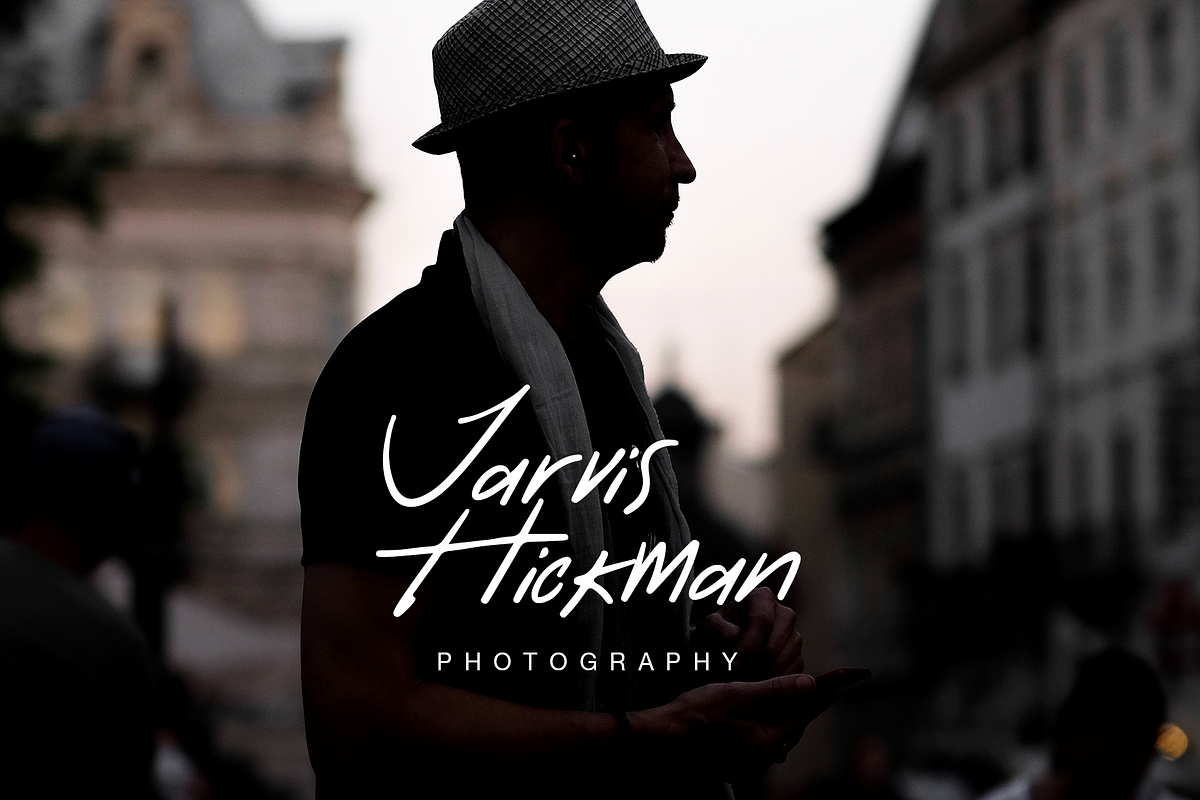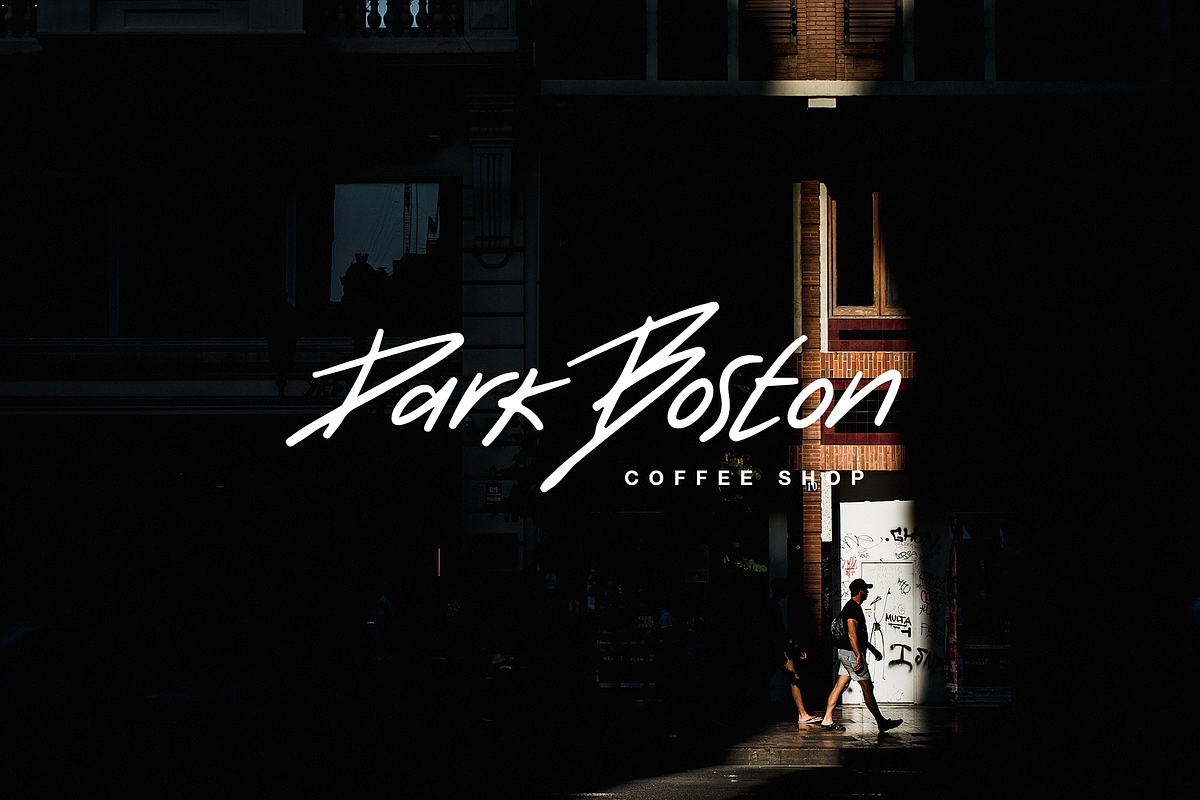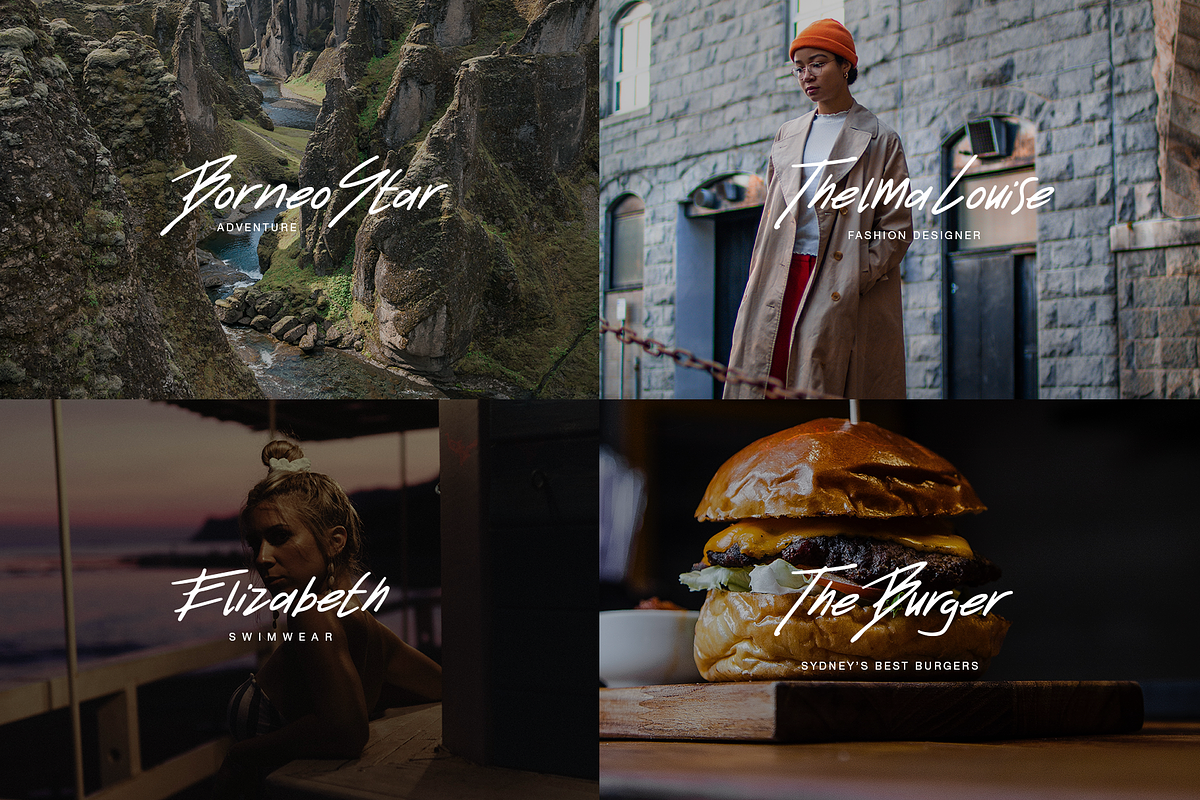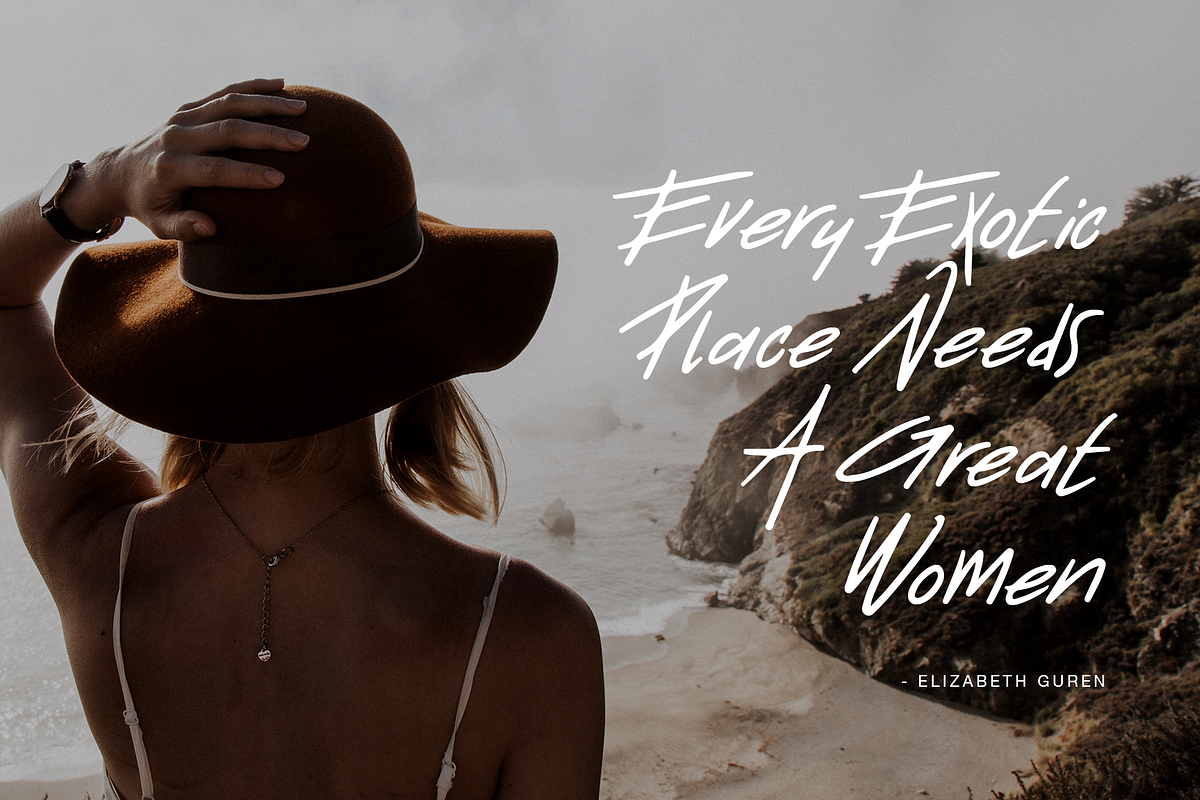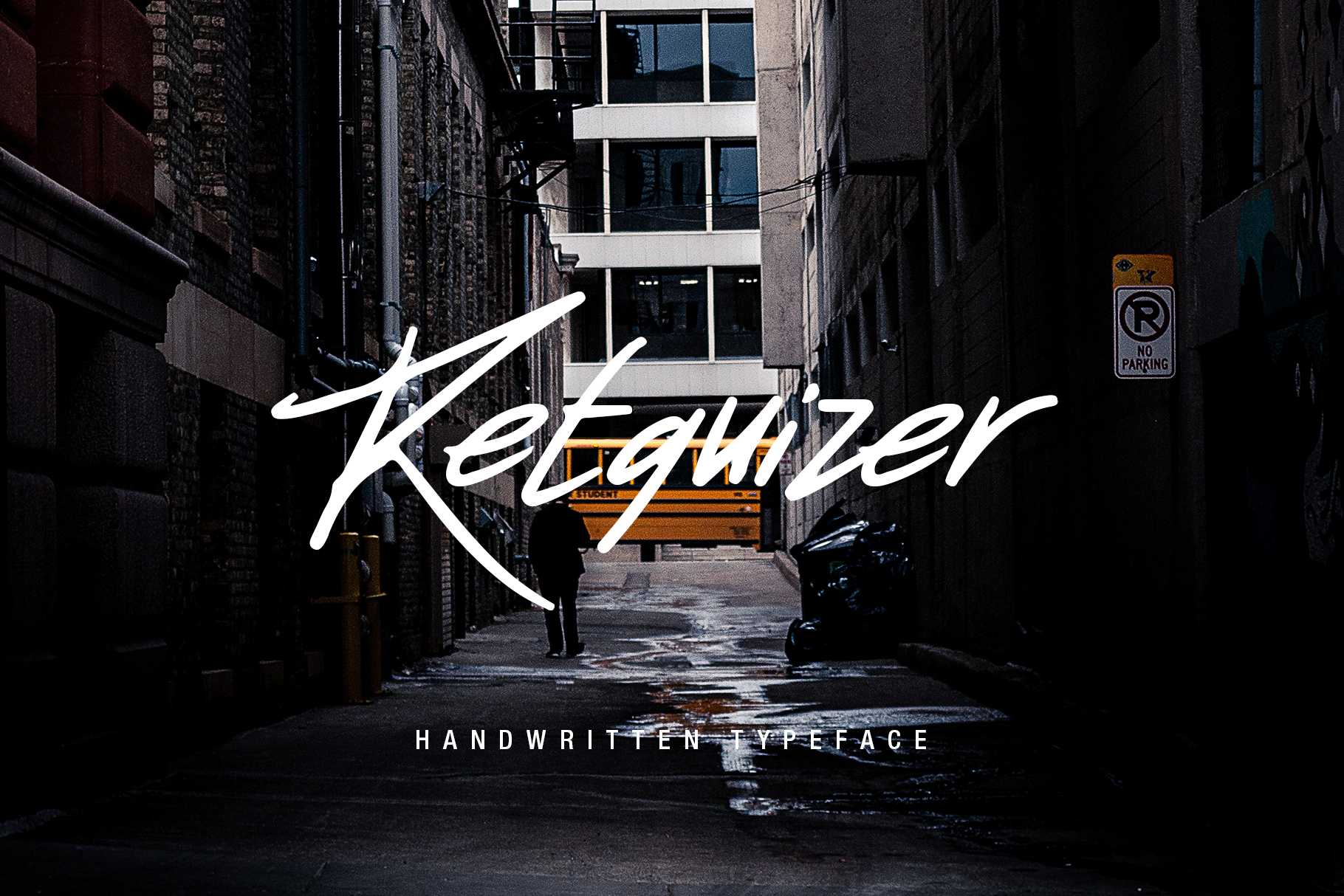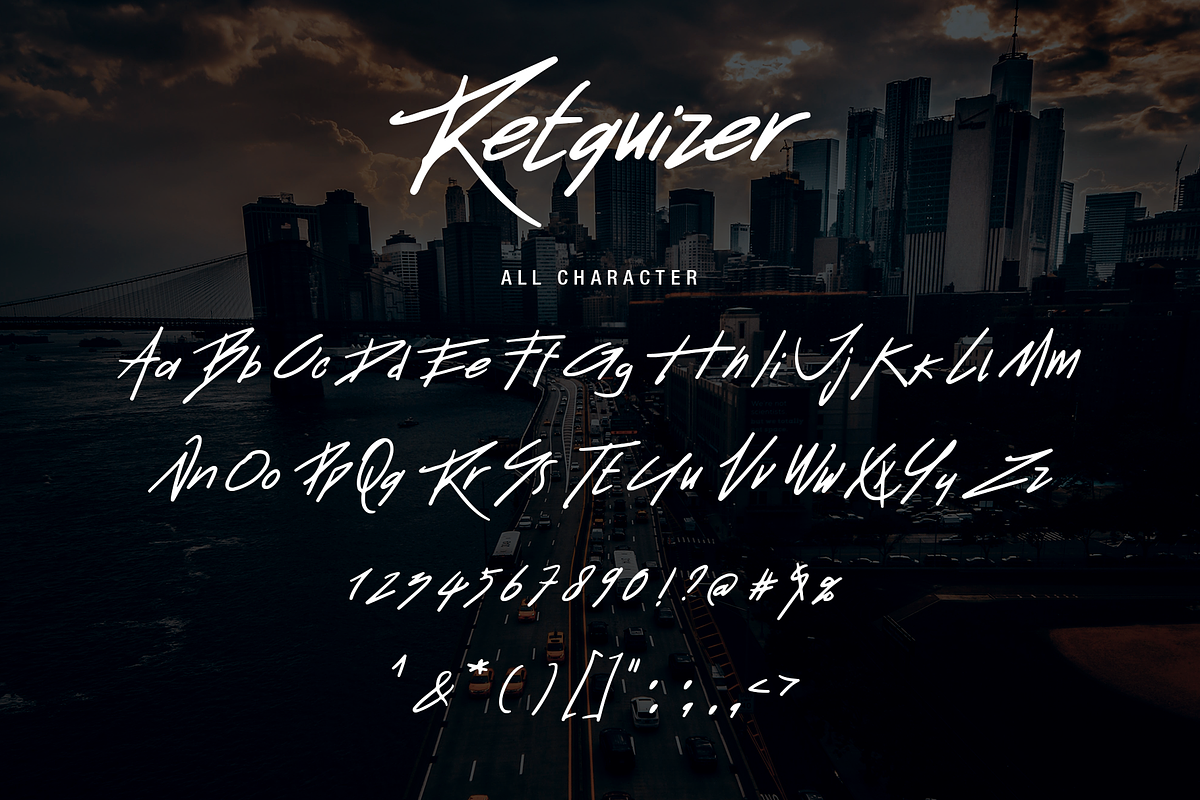
Retquizer - Handwitten Typeface
Introducing Retquizer Handwritten Typeface is a clean brush script that written casually and modern. Retquizer perfect for Logo Design, Branding Design, Quote Lettering, and Display Title.